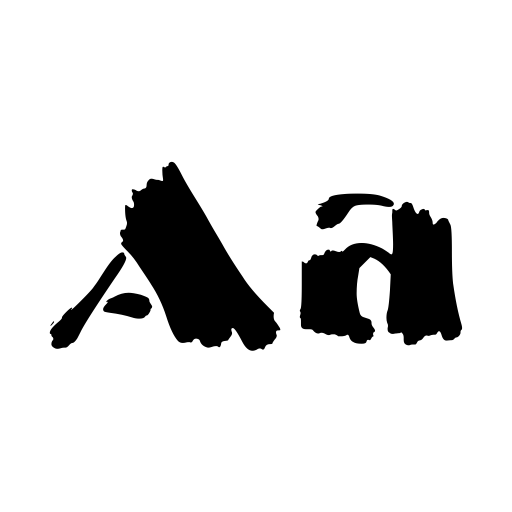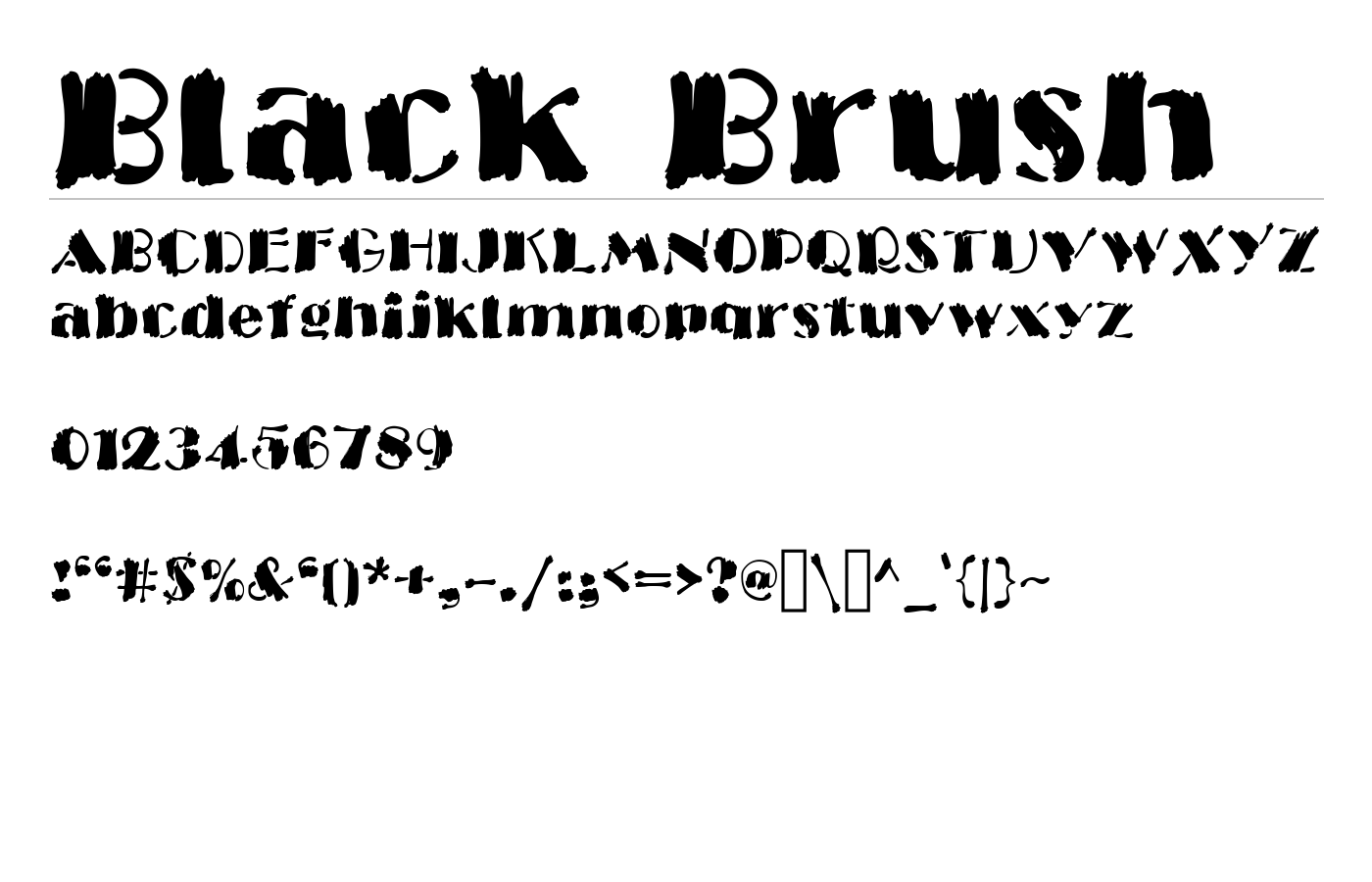
Black Brush is a bold and expressive handwritten font that mimics the rough texture of thick brush strokes. Its uneven edges and irregular shapes give it a raw, artistic feel, making it perfect for creative designs that want to convey energy and individuality. Ideal for posters, logos, and packaging, this font adds a dynamic and eye-catching touch to any project needing a strong, handcrafted look.
Black Brush Font
About Black Brush Font
| Font family | Black Brush Font |